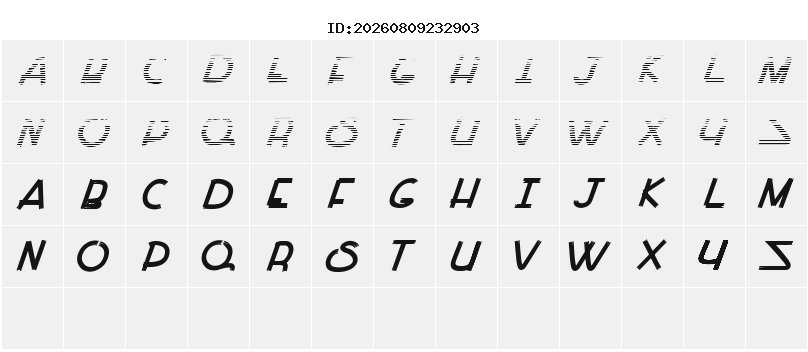
• Font Name: Paint all Time
• Designer: M.K.V
About Paint all Time.ttf
Paint all Time.ttf is a modern, elegant sans-serif font designed for ultimate readability and visual harmony. Perfect for branding, headlines, web design, and print materials.